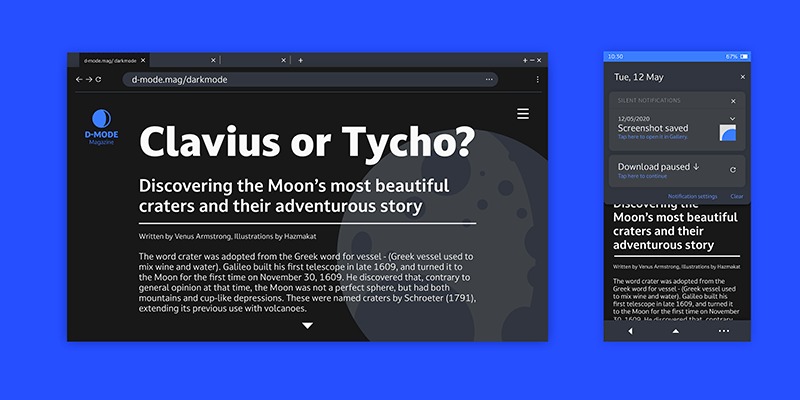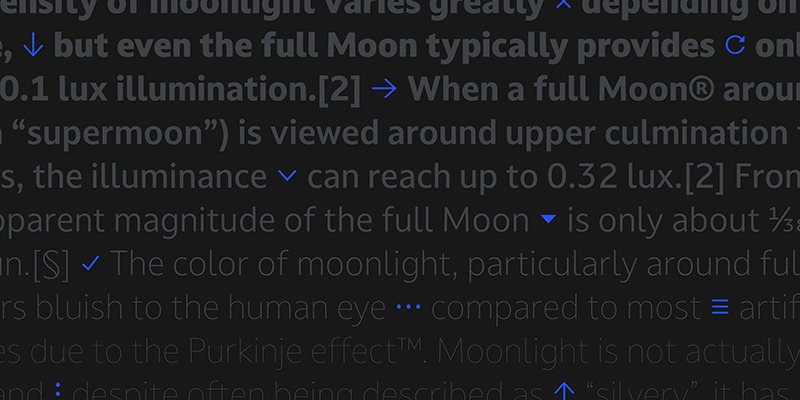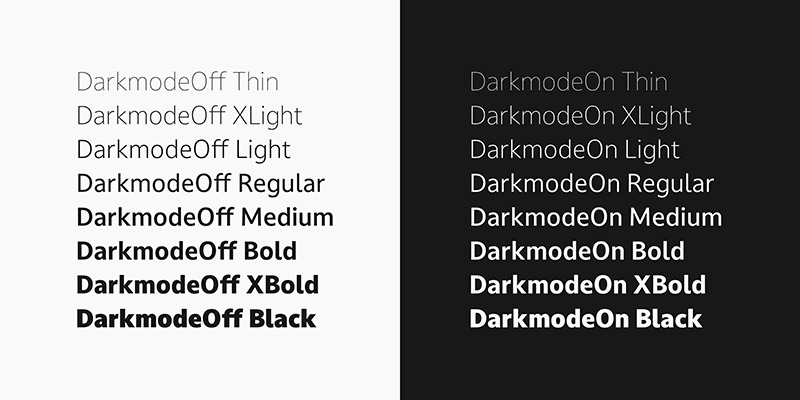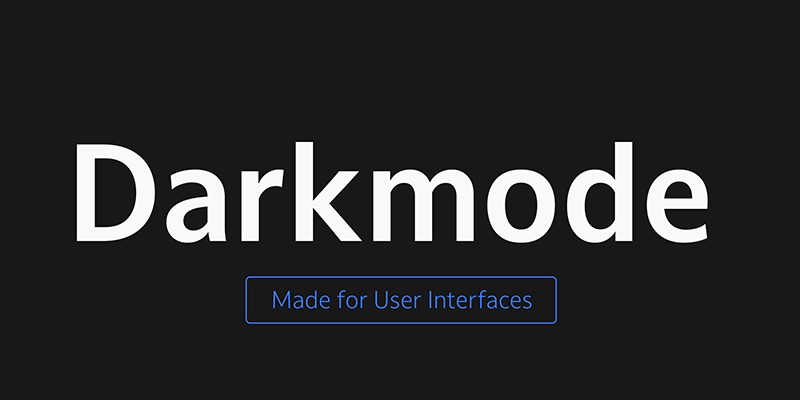
Darkmode Sans Serif Font
This is a minimal and modern sans serif typeface crafted & designed by daltonmaag. It combines a highly-legible and practical design with innovative variable font technology, easing the typographic challenges that come with modern interface design.
There are well-known optical and psychological effects in design which result in text presented white-on-black being perceived as larger and bolder than the same text presented black-on-white. This presents a challenge for consistent visual hierarchy on different backgrounds, especially when designing for emissive displays. With more and more operating systems and devices offering a user-selectable “dark mode”, the issue is more prevalent than ever.